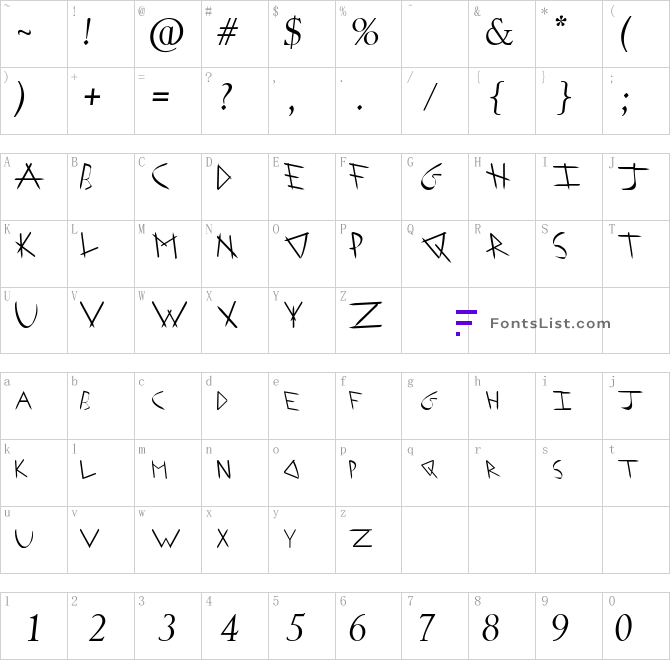
- Font Name:Arrowhead I Shaha
Arrowhead-I-Shaha-Italic.ttf is a very beautiful artistic font, Arrowhead-I-Shaha-Italic.ttf is widely used in the design and printing of various books and pictures,Arrowhead-I-Shaha-Italic.ttf has a strong visual impact,Arrowhead-I-Shaha-Italic.ttf is a commonly used font in newspapers, magazines and books, and is used in posters, e-commerce Poster design, store design, logo design, font design and other fields.Arrowhead-I-Shaha-Italic.